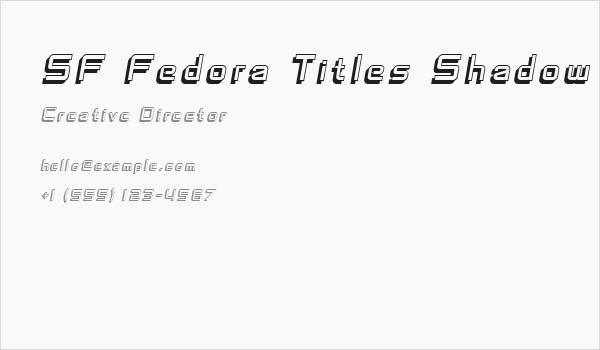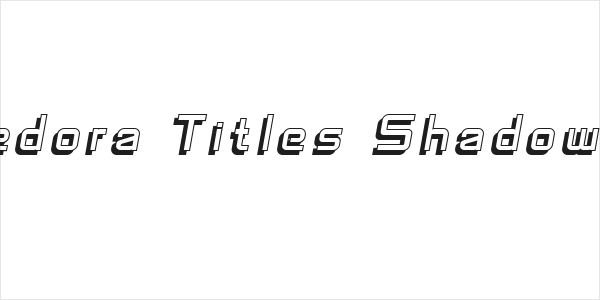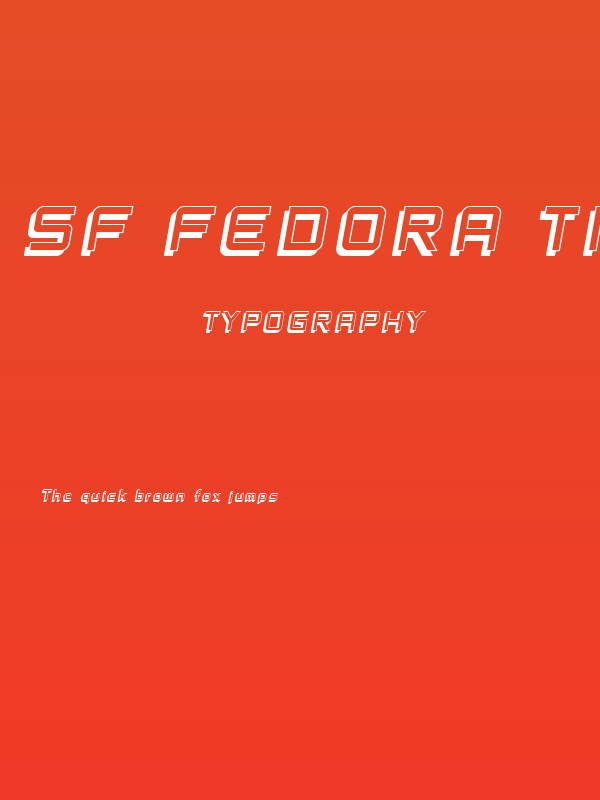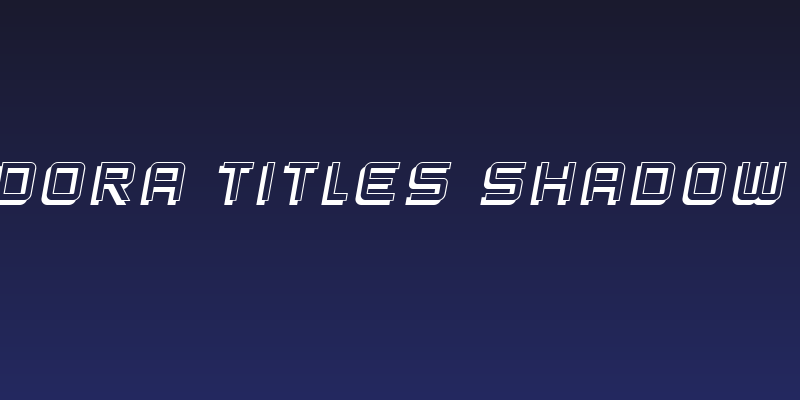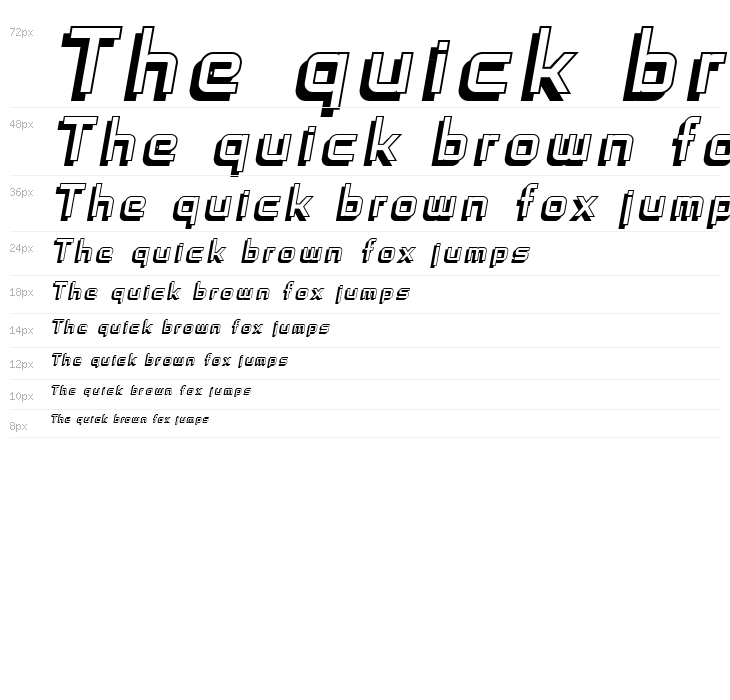
SF Fedora Titles Shadow Italic Font
SF Fedora Titles Shadow Italic Description
This font features a bold and dynamic design with a distinct shadow effect that adds depth and dimension to each character. The italicized style gives it a forward-moving, energetic appearance, making it stand out in any design. The uppercase and lowercase letters maintain a consistent geometric structure, while the numerals and special characters complement the overall aesthetic. The shadow effect is consistently applied, enhancing the three-dimensional look and providing a sense of movement. This font is ideal for projects that require a strong visual impact and a modern, edgy feel.
| Proposed Projects | Ideal for headlines, posters, logos, and any design needing a bold, impactful typeface. |